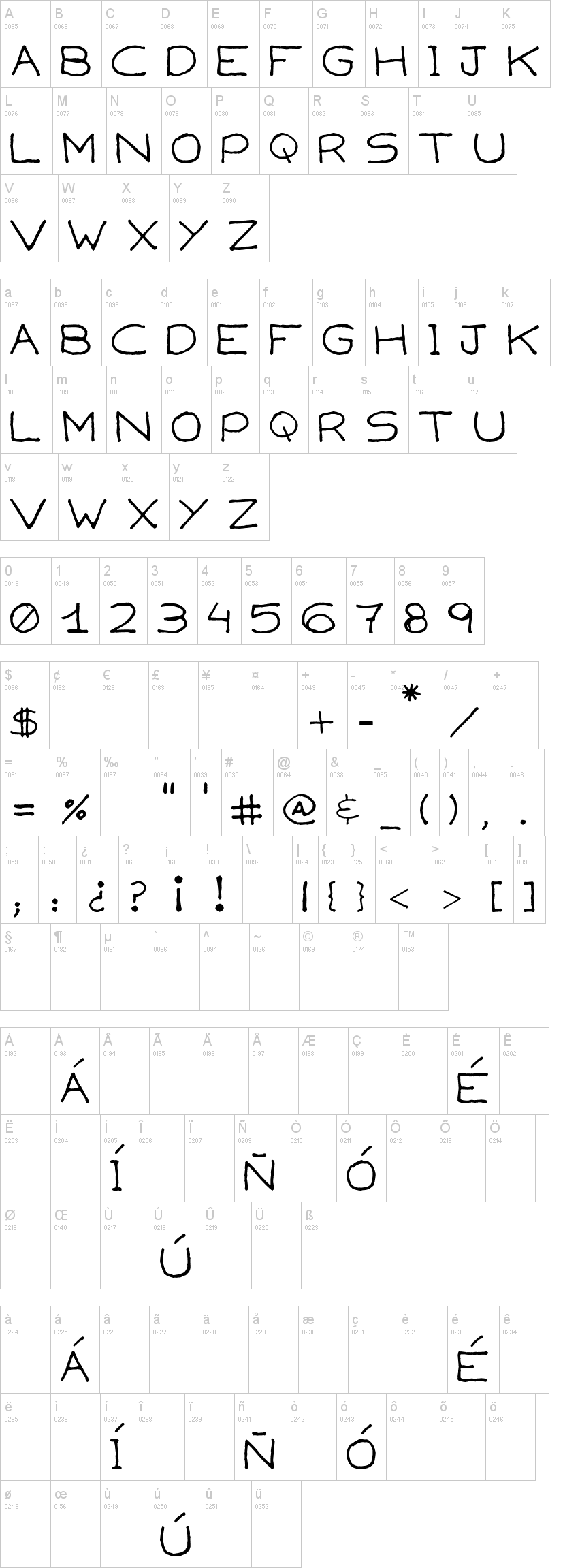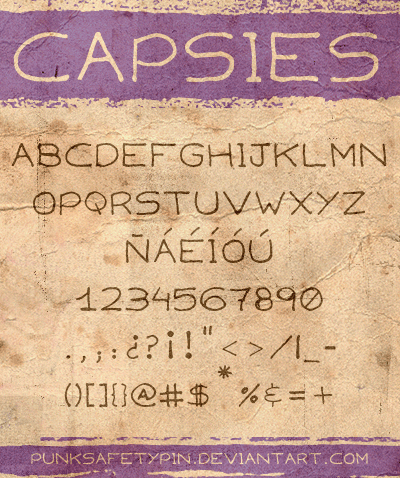
Шрифт Capsies
My first try at making fonts. Just something really quick and kinda sloppy. But since I sometimes find not-so-good fonts to be useful for certain things, I thought I should share this one.